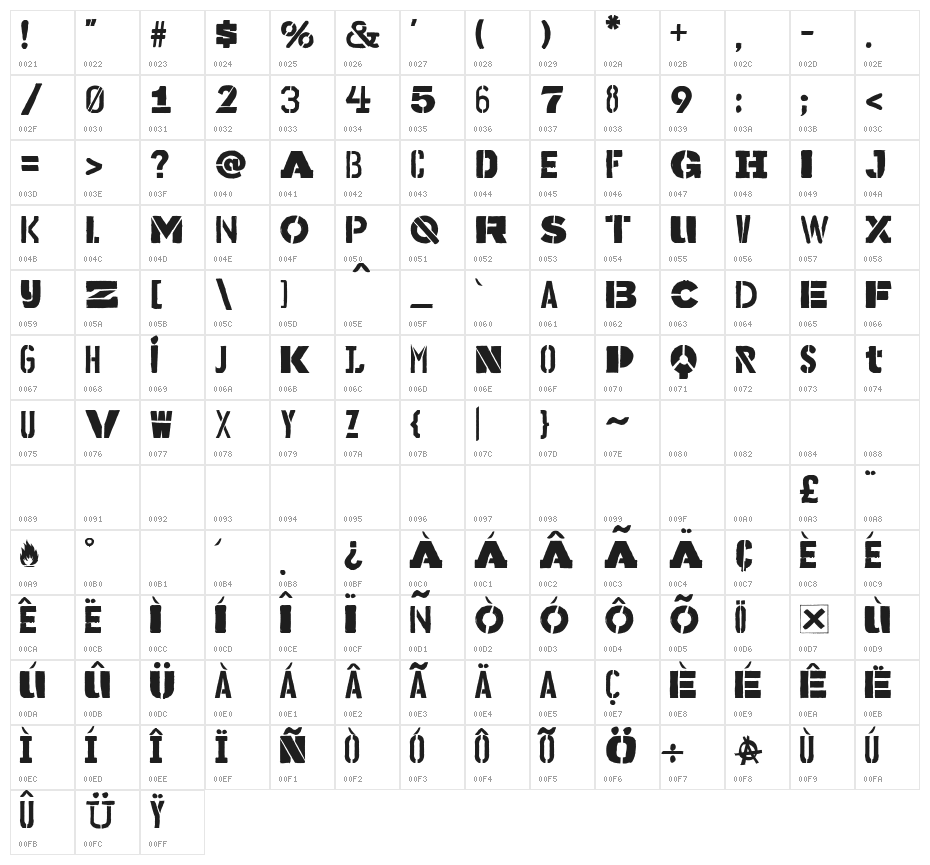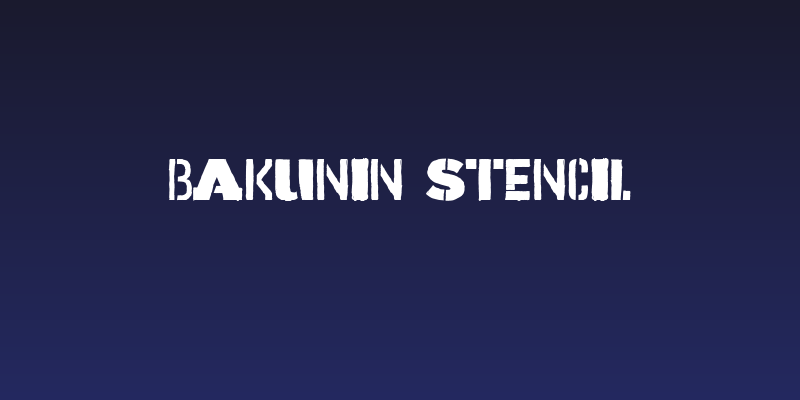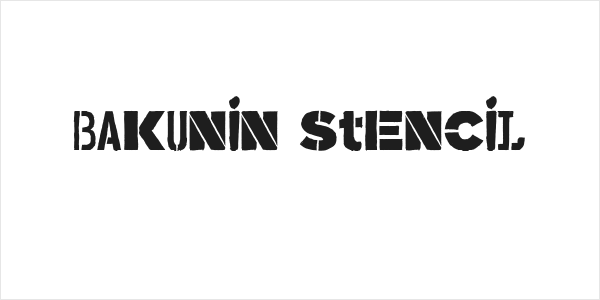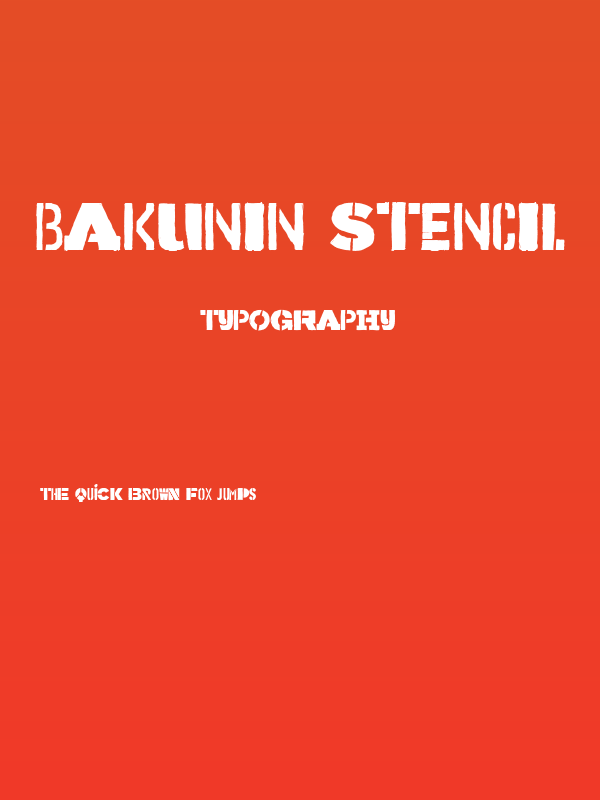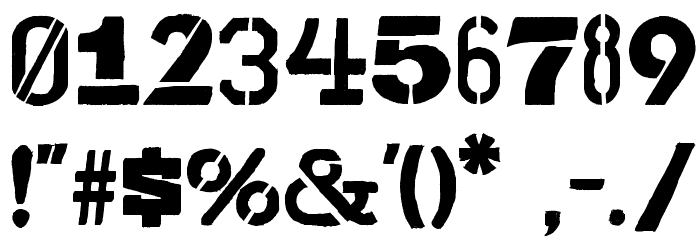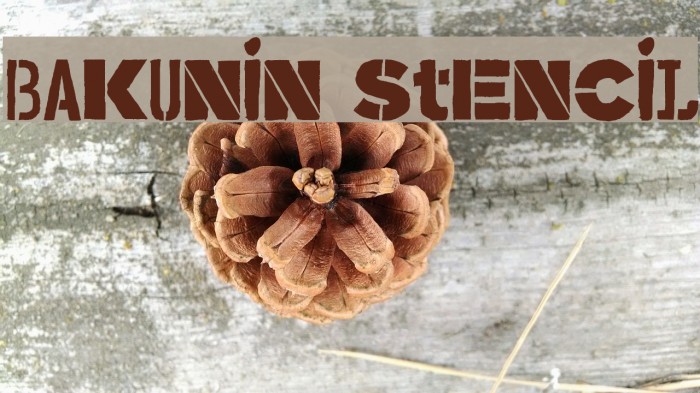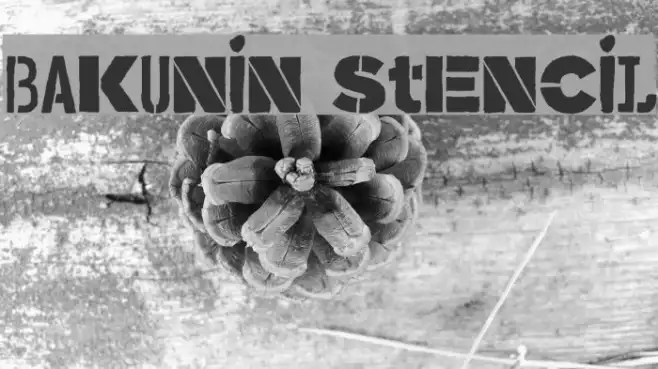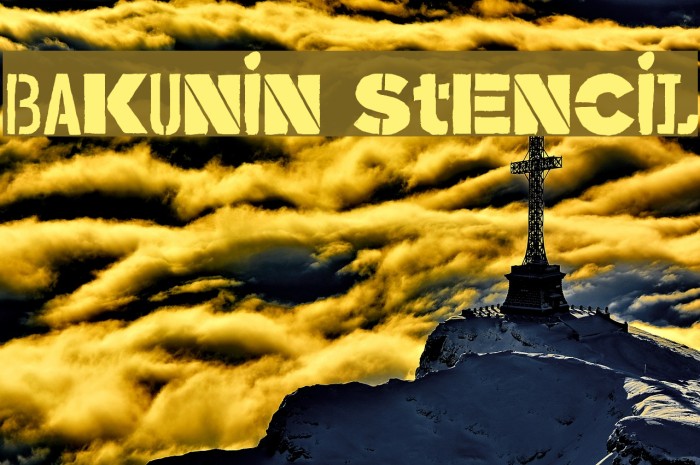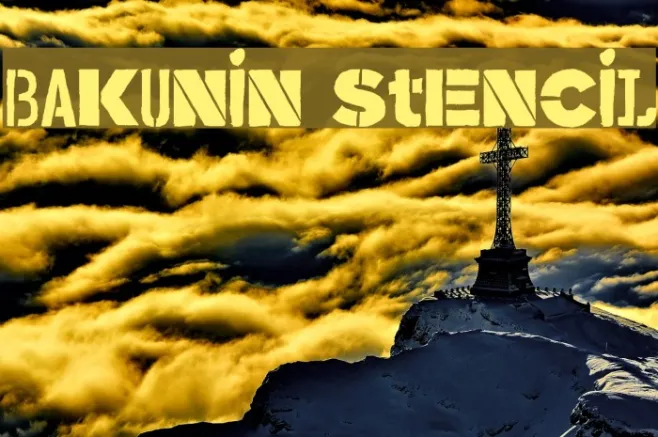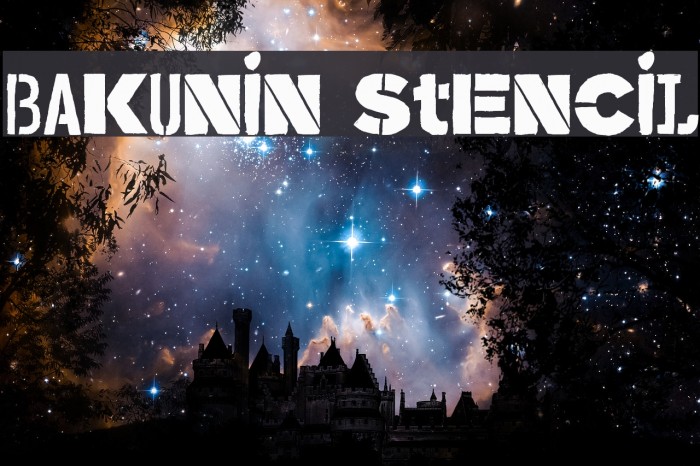
Bakunin Stencil Font
Bakunin Stencil Description
This font features a bold, stencil-like design with strong geometric shapes and clear cutouts, giving it a rugged and industrial feel. The uppercase letters are particularly striking, with sharp angles and distinct separations that mimic the look of traditional stenciling. The numbers and special characters maintain this theme, providing a cohesive and visually impactful appearance. The font's style is reminiscent of military or urban street art, making it ideal for projects that require a bold and assertive aesthetic.
| Overall Style | Industrial, Urban |
| Proposed Projects | Ideal for posters, signage, branding, and any design requiring a strong, industrial look. |